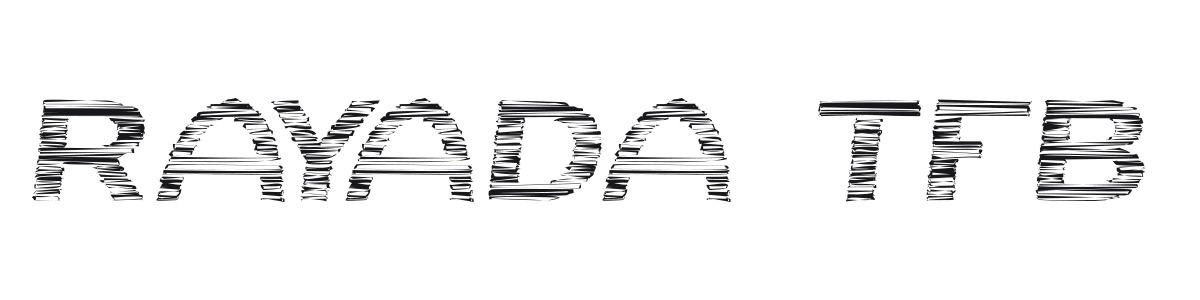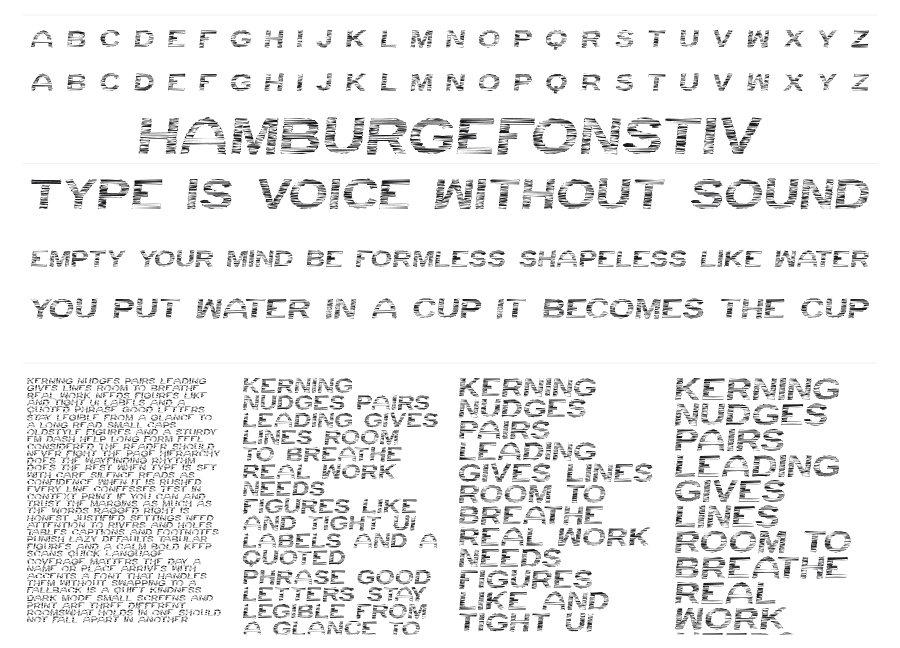
Rayada TFB
Rayada TFB is a bold display sans whose characters are filled with dense horizontal line hatching, giving every letter a shredded, motion-blur quality. The effect reads somewhere between speed lines and torn paper, making it feel kinetic and raw. It works at large sizes where the texture resolves clearly.